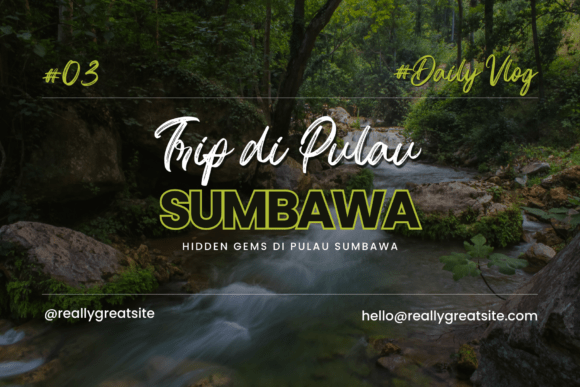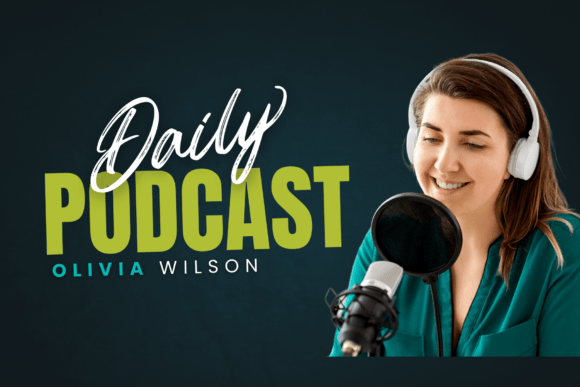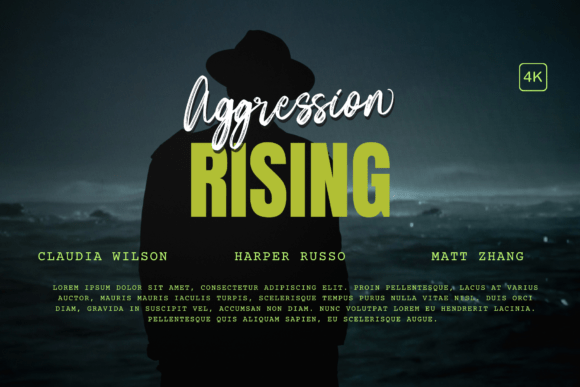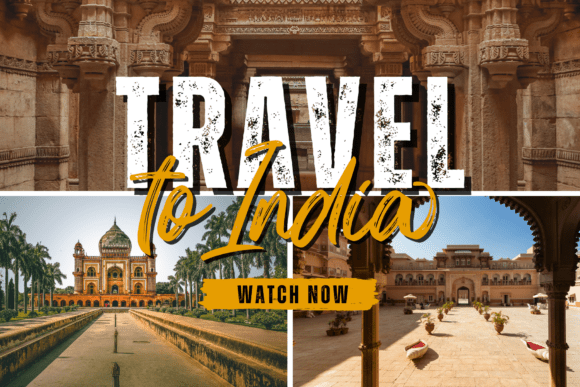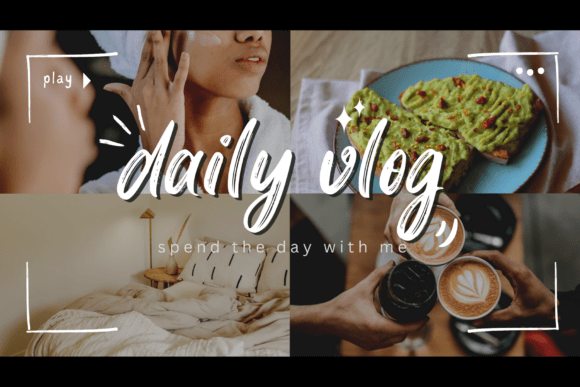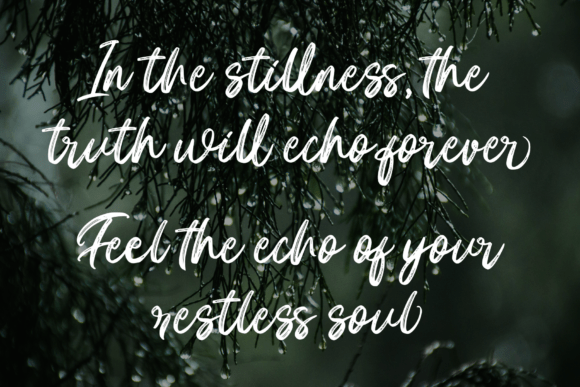
Introduction to Phillosophia Font
As designers, we’ve all been there – staring at a blank page, searching for the perfect font to bring our creative vision to life. It’s that moment when the right typography can elevate your design from good to great. For many, this moment comes when they discover the enchanting Phillosophia Font. With its captivating script style and lavish array of ligatures and alternates, this font is a game-changer for designers looking to add a touch of sophistication to their work.
Whether you’re working on a high-end design project or a free download for a personal creative endeavor, Phillosophia Font is a valuable resource that can help you achieve unparalleled levels of brilliance. Its seamless integration across various design concepts makes it an ideal choice for designers who want to explore new visual narratives and push the boundaries of their creativity.
Key Features of Phillosophia Font
- Transparent background allows for seamless integration with any design or background.
- Phillosophia Font is available in a single weight, making it a versatile design resource for various creative projects.
- Designed at a high resolution of 300 DPI, making it suitable for print and digital applications.
- Phillosophia Font is a unique and creative design resource perfect for designers, artists, and writers looking to add a touch of elegance to their work.
Honest Review: Phillosophia Font
I recently had the chance to work with the Phillosophia Font, a highly sought-after design resource. As a designer, I was excited to see if it would live up to its hype. Overall, I was pleased with the results.
- ✨ High-quality typography: The Phillosophia Font has a clean and elegant design that adds a touch of sophistication to any creative project.
- ✨ Versatility: This font is perfect for a variety of design applications, from brochures to websites.
- ⚠️ Limited customization options: While the Phillosophia Font is beautiful, I found that there were limited options for customization, which might be a drawback for some designers.
- ⚠️ Not suitable for dark backgrounds: Due to its transparent background, the Phillosophia Font may not be the best choice for designs with dark backgrounds.
Overall, I was impressed with the Phillosophia Font and would definitely recommend it to designers working on creative projects. With its high-quality typography and versatility, it’s a valuable addition to any design resource library.
Phillosophia Font
Tips for Getting the Most Out of Phillosophia Font
Experiment with different font sizes and styles to achieve the desired effect. Combine Phillosophia Font with other design elements to create a visually appealing design. Don’t forget to save your design with the font applied for easy access in the future.
Phillosophia Font is ideal for creative projects such as logos, business cards, and social media graphics. Its high-quality design and transparent background make it a popular choice among designers.
Alternatives to Phillosophia Font
1. Carolyna Pro
Carolyna Pro is a high-quality, elegant sans-serif font ideal for creative projects requiring a sophisticated and modern look. It features a transparent background, making it perfect for designers working with images or videos. You can download Carolyna Pro for free, but it’s also available for purchase in various font formats.
Compared to Phillosophia Font, Carolyna Pro has a more refined and minimalist design, making it suitable for a wider range of applications, from logos to body text. Its versatility and high quality make it an excellent alternative for designers seeking a more professional look.